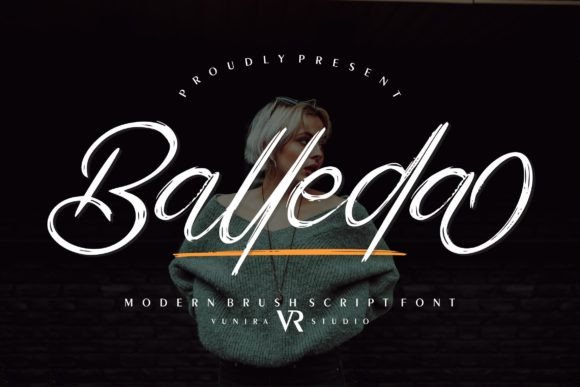
A Modern and Cool Handwritten Script
Balleda is a modern handwritten script font that brings a unique and cool touch to your designs. With its smooth, flowing strokes and bold character, Balleda offers a perfect balance of contemporary style and timeless elegance. Whether you’re working on branding, invitations, or social media graphics, Balleda helps add personality and sophistication to your projects.
Its well-crafted lines and unique design make it an ideal choice for a variety of creative projects. The font’s modern and bold style ensures that your text stands out while maintaining an air of elegance.
Balleda is incredibly versatile, making it perfect for a wide range of design projects. It’s ideal for logos, business cards, and branding materials. The bold, handwritten style gives your brand a memorable look that’s both stylish and professional.
This font works beautifully for event invitations, greeting cards, and promotional materials. Its elegant yet cool design adds a personal touch that enhances any special occasion.
Balleda also shines in social media graphics, website headers, and digital marketing materials. Its unique style grabs attention and adds a creative flair to your content, making it perfect for online and digital designs.
Despite its artistic nature, Balleda is highly legible. The letter spacing is balanced, ensuring your text stays clear and easy to read, whether you’re using it for large titles or smaller captions.
Pair Balleda with a clean sans-serif font for contrast. Use it for the titles or main headings and combine it with a simple sans-serif font for the body text. This creates a visually appealing design while ensuring the content is easy to digest.
To highlight Balleda’s modern elegance, use minimalist backgrounds and bold color schemes. Neutral colors like deep blues, soft ivory, and charcoal will complement the font’s sleek design without overpowering the text.
For event materials, wedding designs, or luxury branding, consider incorporating delicate patterns or geometric elements that enhance Balleda’s modern feel. For social media graphics, keep your design layout clean to ensure Balleda remains the focal point.
Think about the mood you want to create. Balleda is perfect for designs that need to feel bold, chic, and timeless, with a touch of creative flair.
Balleda is more than just a handwritten script—it’s a creative tool that brings elegance, boldness, and sophistication to your designs. Its modern and cool style makes it perfect for a variety of projects, from branding to social media content.
Adding Balleda to your font library ensures that you’ll always have a unique and stylish option for your design needs. Whether you’re working on logos, invitations, or promotional materials, Balleda adapts easily to your creative vision.